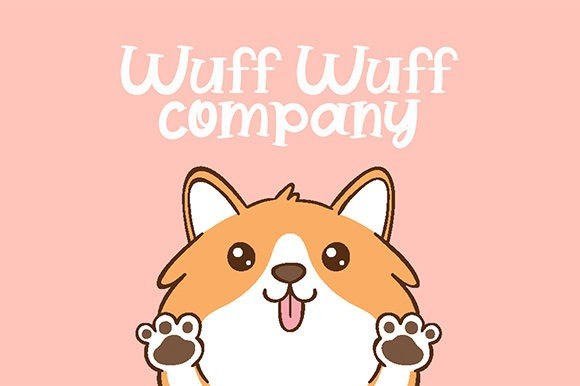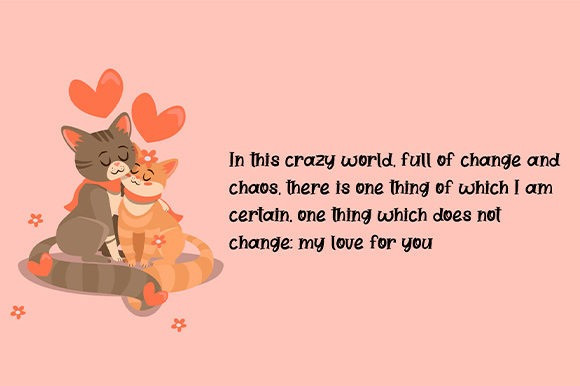
World Of Paradise Display Font
World Of Paradise is a fun and bouncy script font. A little bit quirky, this font looks incredibly adept on a wide variety of contexts!